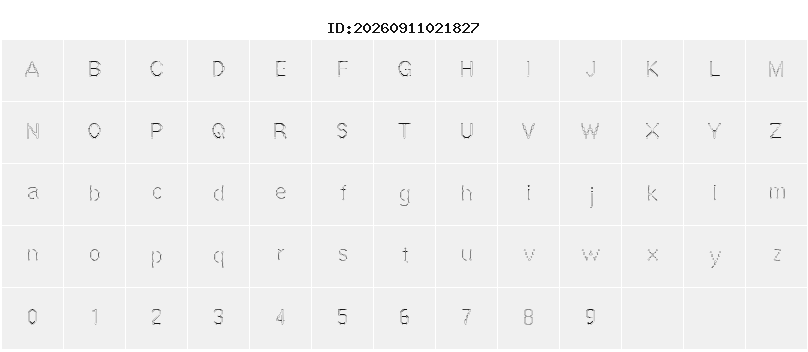
Vestige.ttf is a modern, elegant sans-serif font designed for ultimate readability and visual harmony. Perfect for branding, headlines, web design, and print materials.